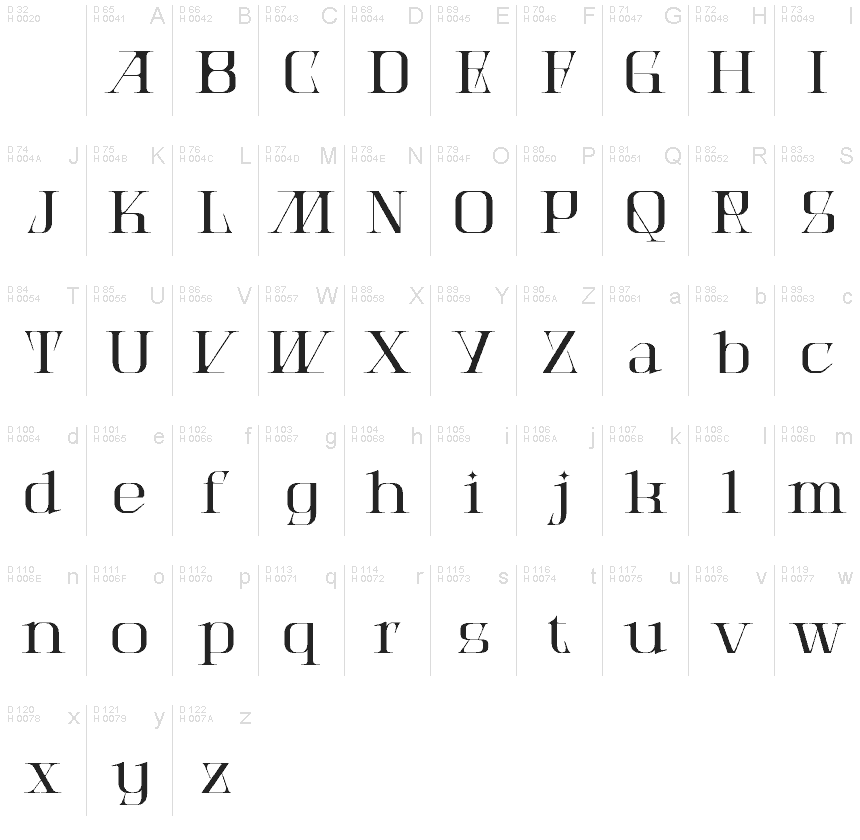
CS Diamond Regular Demo
CS Diamond font is a sophisticated serif font designed by Craft Supply Co. The free serif font impresses with its beautiful decorative elements and high-end appeal that add to its elegant and modern touch. Its beauty can be found in the soft corners, thin serifs, and unique professional presentation of each character shape.
Use this wonderful font in all types of printed projects like magazines, books, and newspapers. Other uses include branding for distinguished businesses like hotels, resorts, jewelry brands, boutiques, and fashion houses. Web designs would also work perfectly well whether commercial or personal like blogs or social media posts.